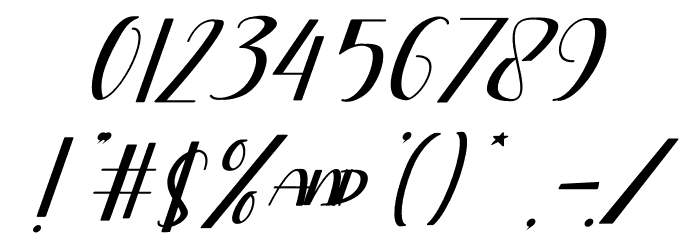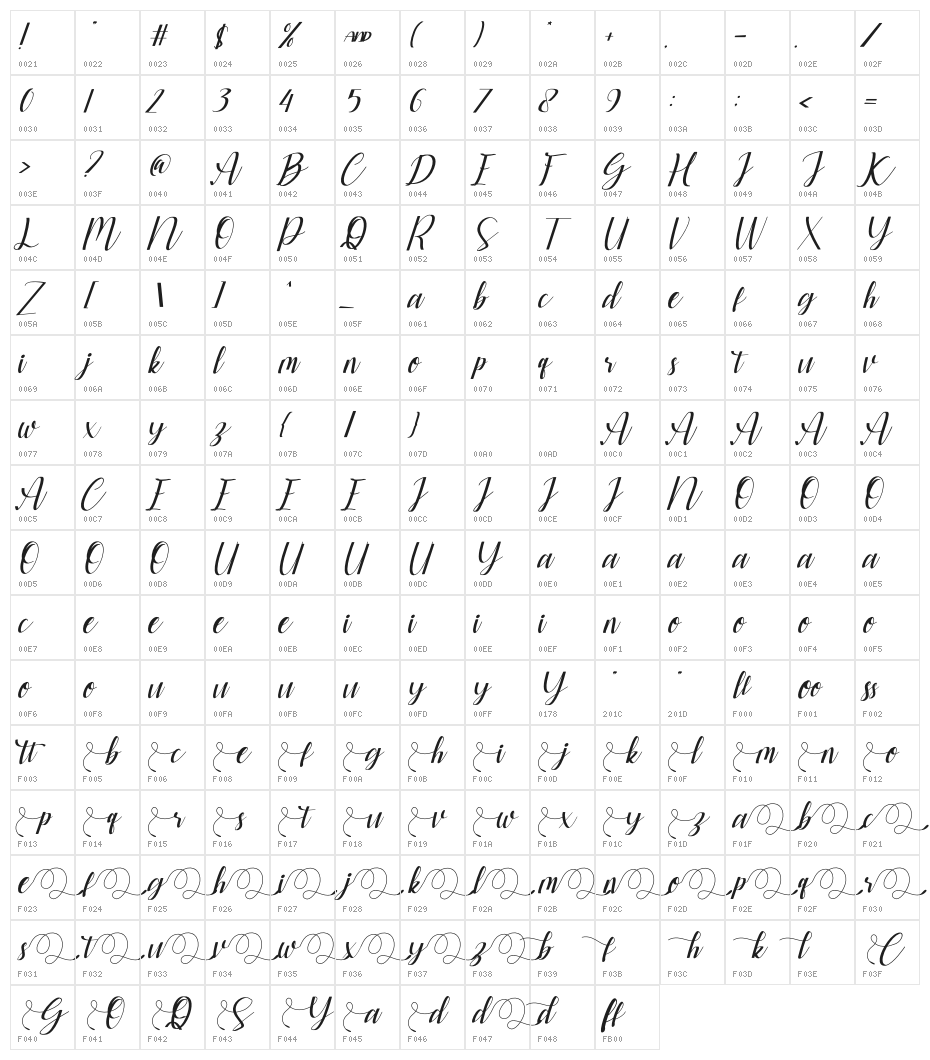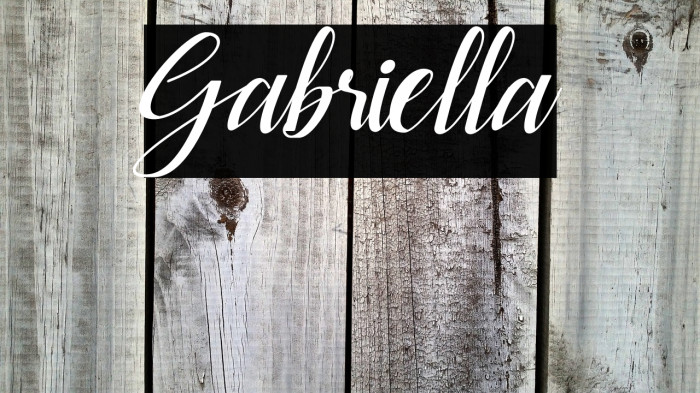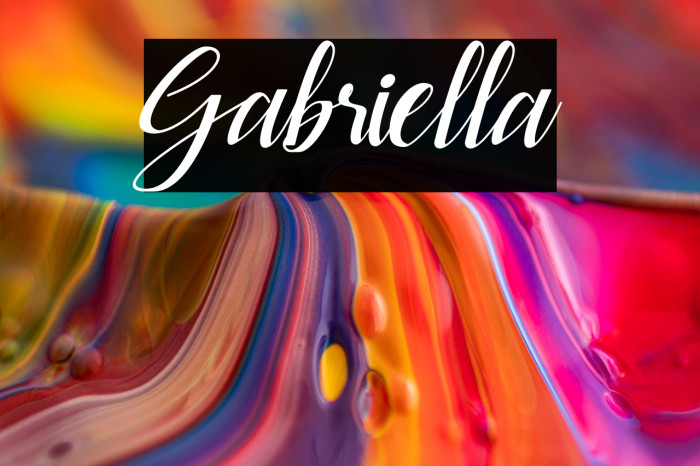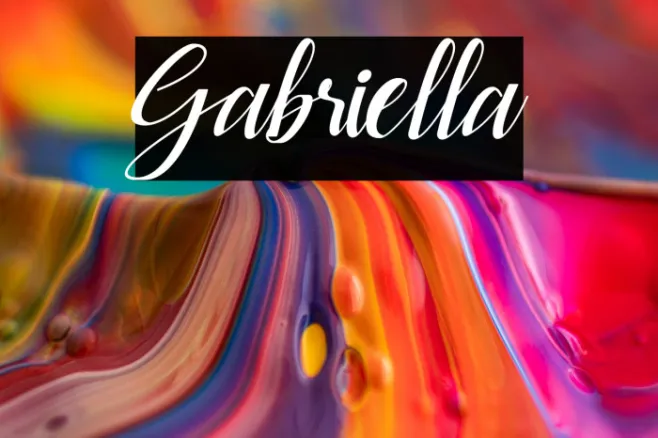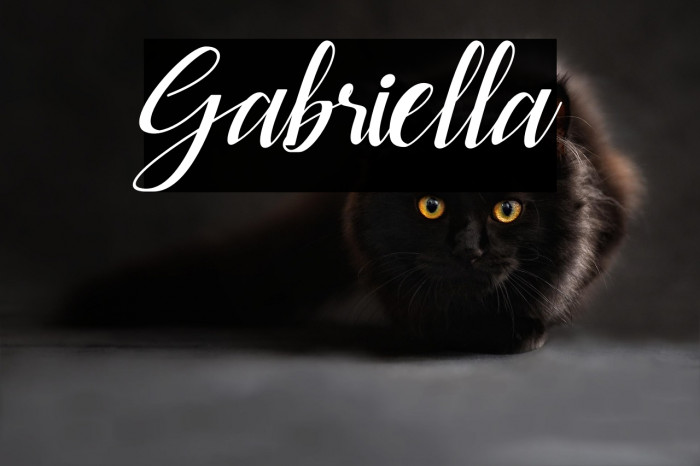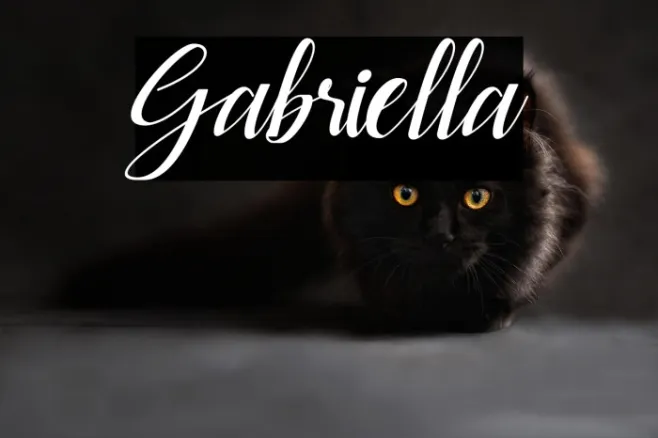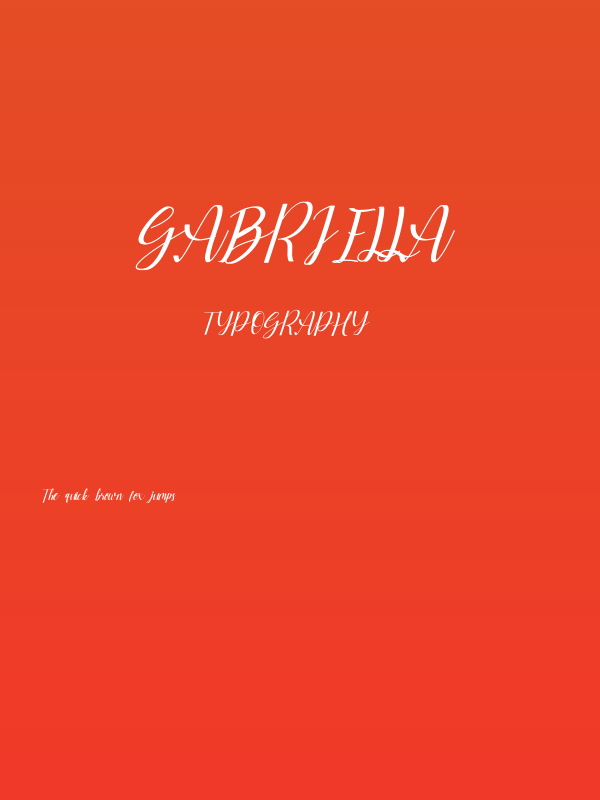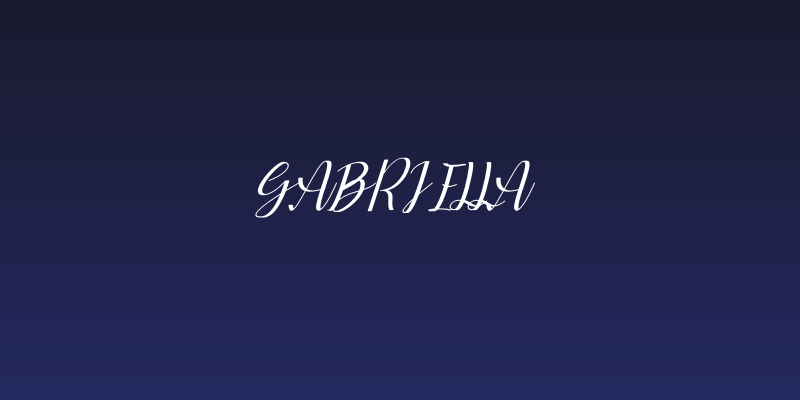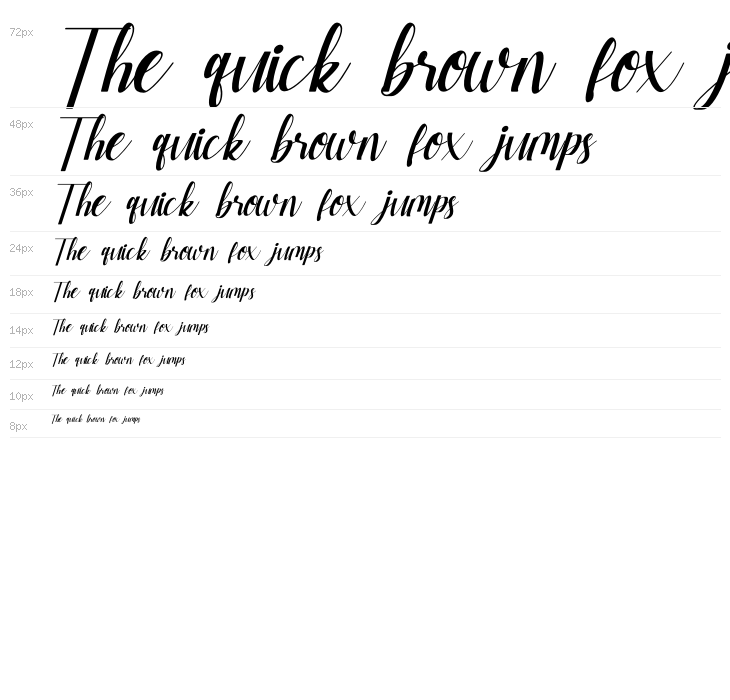
Gabriella Font
Gabriella Description
This elegant script font features a flowing, cursive style with a modern twist. The uppercase letters are tall and slender, with graceful curves and a slight slant, giving them a sophisticated appearance. The lowercase letters maintain a consistent flow, with smooth connections between characters, enhancing readability. The numerals are stylish and complement the overall aesthetic, while the special characters add versatility. The font's strokes vary in thickness, providing a medium contrast that adds depth and interest. Its refined and artistic design makes it suitable for a variety of creative applications.
| Proposed Projects | Ideal for wedding invitations, branding, logo design, and elegant stationery. |